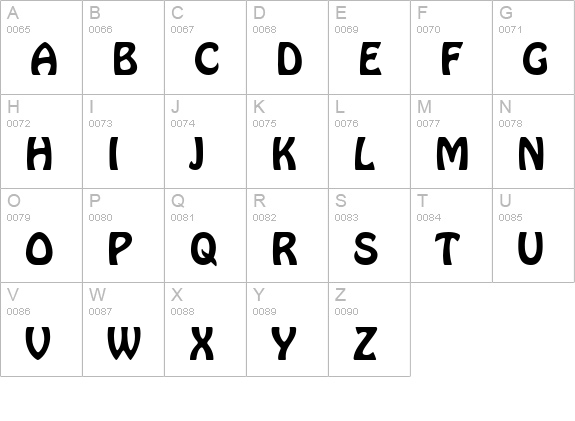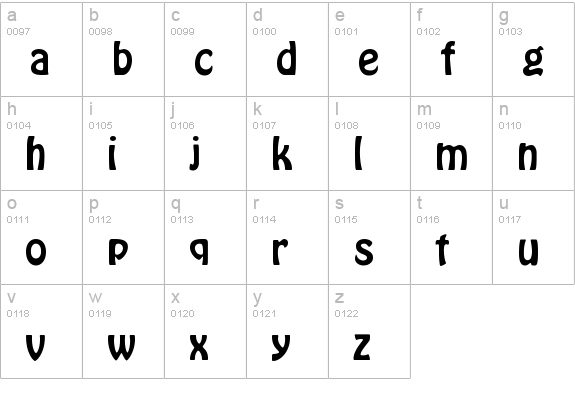
HomewardBound Font Details
HomewardBound is a charming and whimsical font that exudes a sense of nostalgia and warmth. Its playful curves and elegant strokes make it perfect for a variety of creative projects, from branding to invitations and everything in between. The font's handcrafted feel adds a touch of authenticity and personality to any design. Best of all, HomewardBound is completely free to download at FontsMarket.com. With its unique style and versatility, this font is sure to become a favorite among designers and creatives looking to add a touch of creativity to their work. Download HomewardBound today and let your imagination soar!